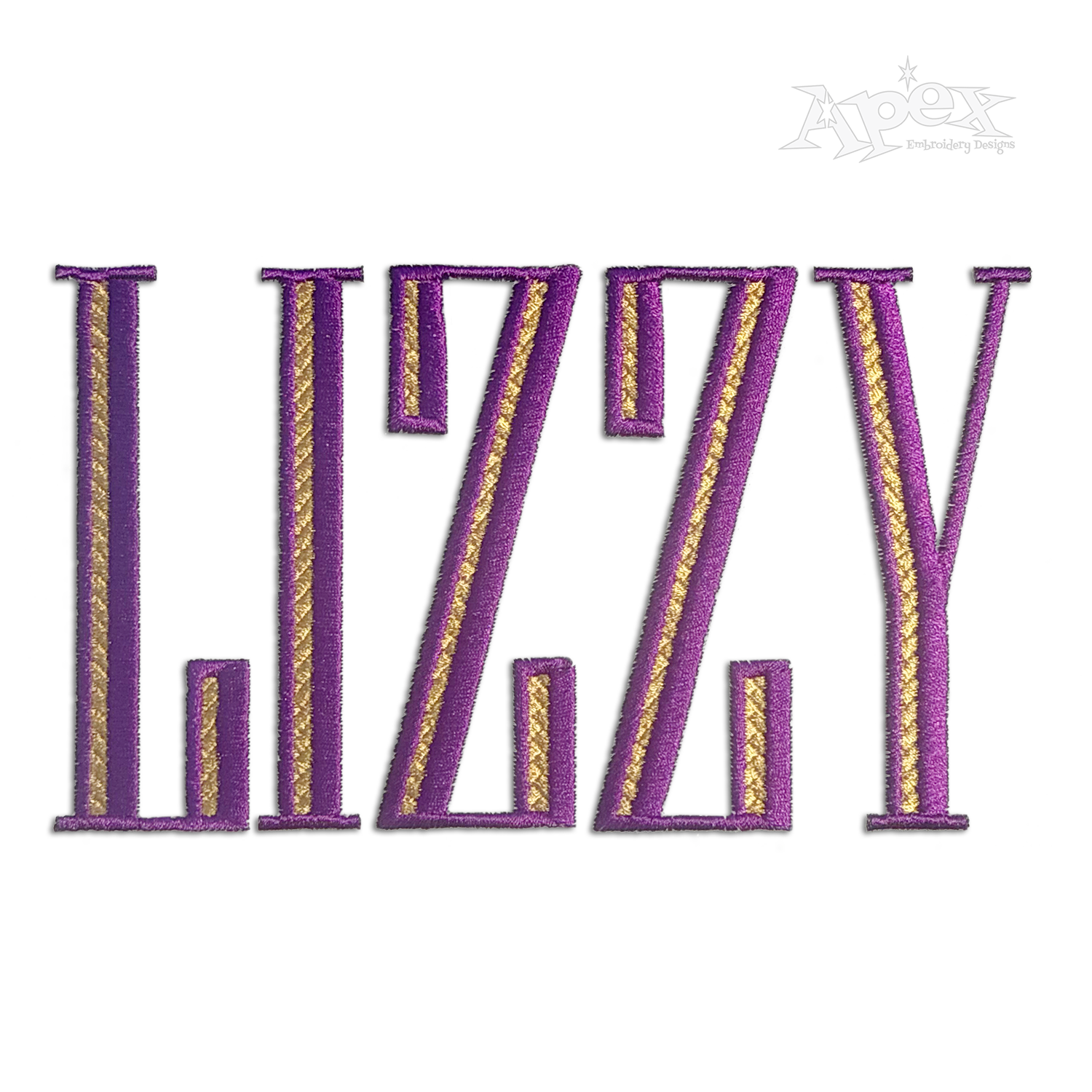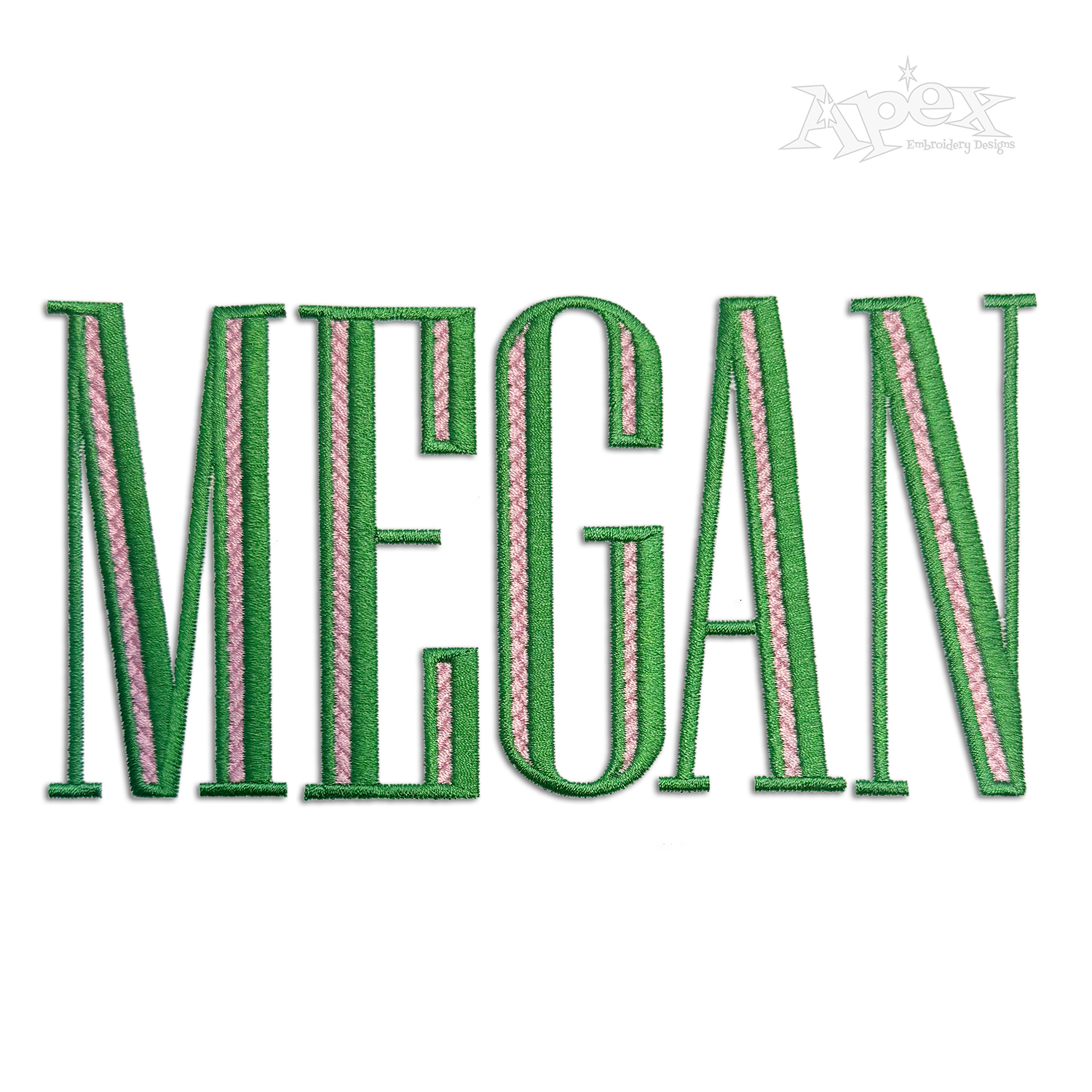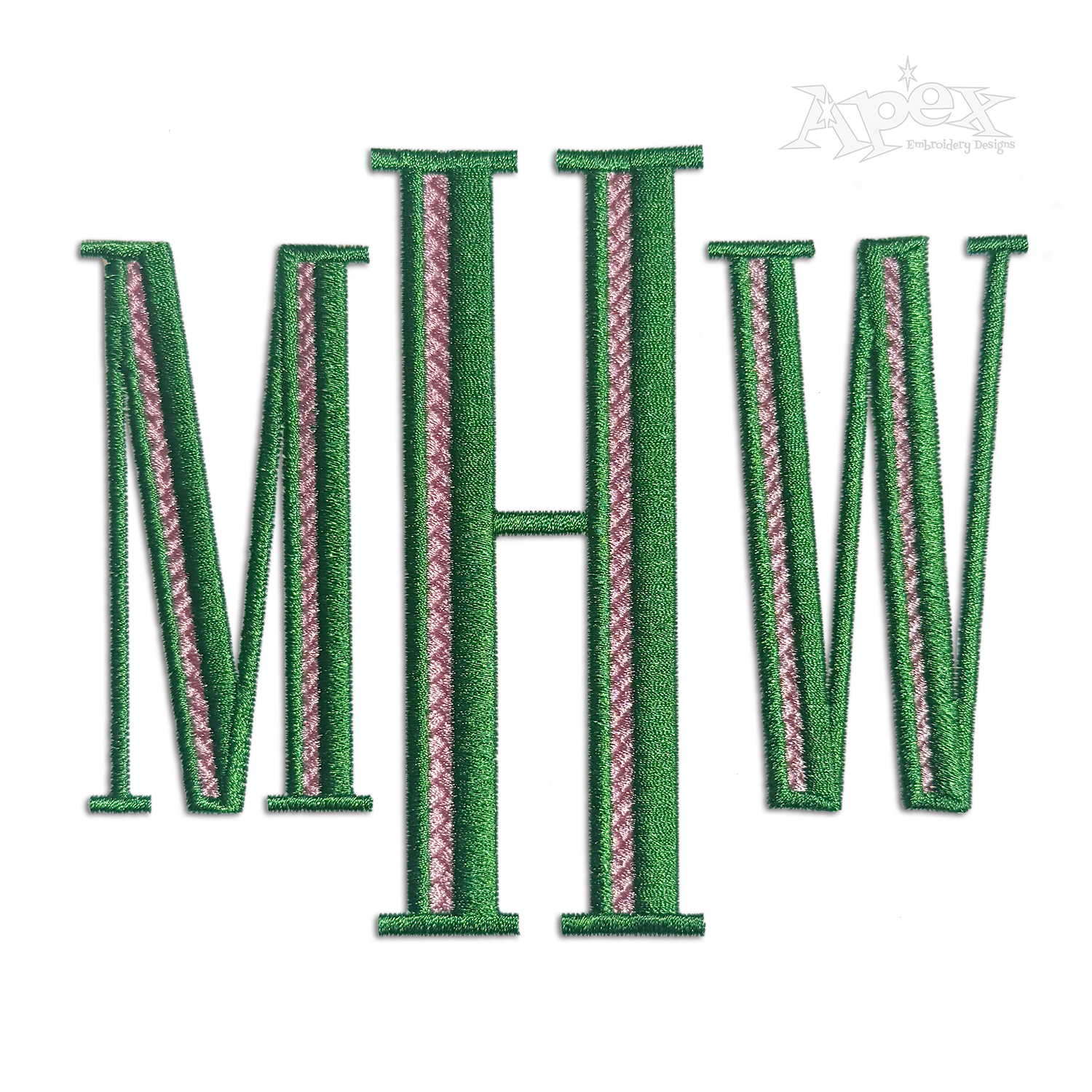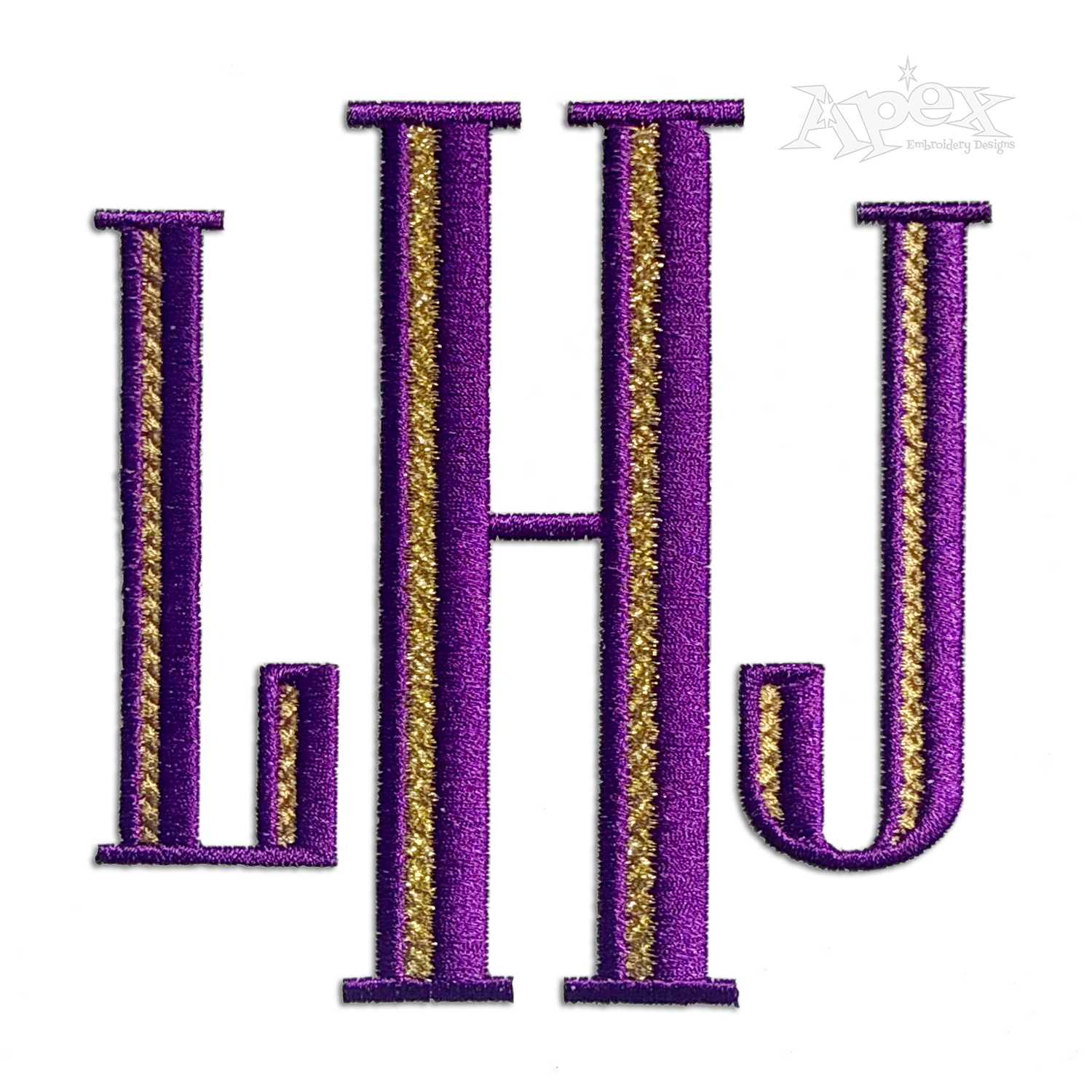
Maxwell Embroidery Font
When drafting the Maxwell Embroidery Font at the digitizing board, our aesthetic vision was anchored in statuesque mid-century editorial typography—tall, slender, and unmistakably architectural. We wanted to design a skinny block letterform that commands attention not through excessive bulk, but through disciplined verticality and striking contrast. By pairing a svelte, elongated letter with a crisp secondary shadow, Maxwell brings a sophisticated dimensional pop to modern monogramming. Whether rendered in subtle tone-on-tone neutrals for understated luxury or high-contrast chromatic hues for a bold statement, this alphabet transforms plain textiles into tailored heirlooms.
Digitized with meticulous precision across six graduated heights, the Maxwell Embroidery Font offers flawless proportions for both delicate accents and sweeping statement pieces. The collection is arranged into two practical scale groups:
Project Ideas for Maxwell Embroidery Font
The condensed footprint and dimensional depth of Maxwell make it exceptionally versatile across diverse fabric textures:
- Bespoke Resort Wear: Embroider crisp two-letter monograms onto the chest pockets of linen cabana shirts, crisp poplin button-downs, or lightweight summer robes.
- Heavy Canvas Totes & Weekender Bags: Utilize the 5-inch or 6-inch scale in contrasting marine thread to personalize heavy-duty luggage, boat bags, and tennis gear.
- Luxury Table Linens: Stitch a crisp, vertical family initial onto hemstitch dinner napkins or woven placemats for contemporary dinner parties and wedding tablescapes.
- Heirloom Bedding & Pillows: Grace tailored pique pillow shams, duvet corners, and textured waffle blankets with an elegant, modern couple monogram.
- Personalized Gifting: Create treasured bridesmaid pouches, groomsmen travel kits, or plush hotel-quality bath towel sets marked with clean, architectural sophistication.
Because of Maxwell's condensed silhouette, it accommodates longer names and balanced three-letter monograms in compact spaces where wider fonts crowd the margins. For classic table linens and cocktail napkins, angle the monogram diagonally 1.5 to 2 inches from the bottom right corner point to maximize geometric impact. When embroidering garments, align the vertical center of the letterform directly over the left-chest pocket line. For oversized canvas totes and pillow covers, position the 5-inch or 6-inch glyphs centrally, allowing generous breathing room around the narrow letterforms to let the graphic shadow outline sing against the fabric weave.
Maxwell Embroidery Font Craft & Letterform Details
True embroidery craftsmanship lives in how thread builds dimension without pulling or distorting the base material. Maxwell is drafted as a true two-color digitized design: the offset shadow creates an architectural drop effect that anchors the letter, while the slender foreground strokes are built with flowing satin stitches that capture the natural luster of high-sheen rayon or polyester threads. Each stroke angle has been carefully calculated to maintain crisp column widths and eliminate bulky overlapping stitches where the vertical stems meet the horizontal baselines. Pull compensation and stitch densities are thoughtfully calibrated across all six sizes, ensuring razor-sharp edges and smooth, puckering-free transitions on everything from fragile linen to structured canvas.